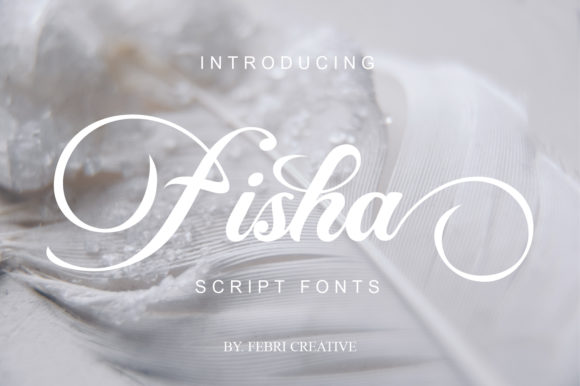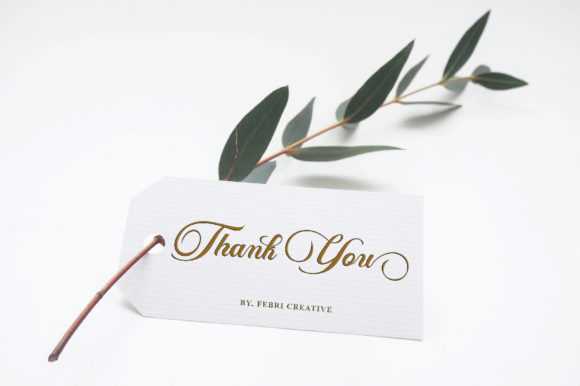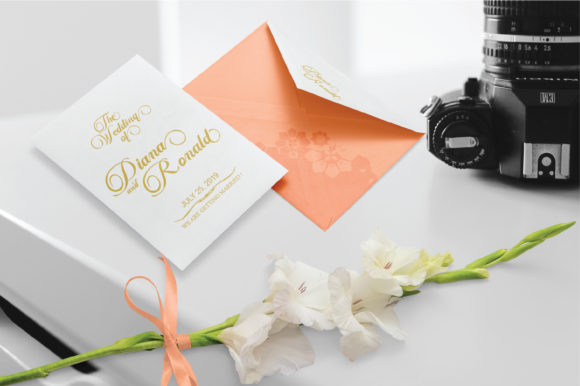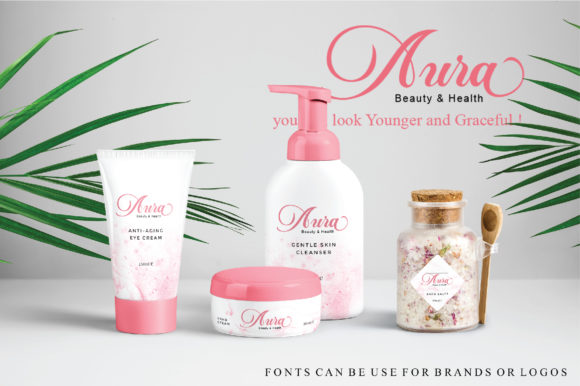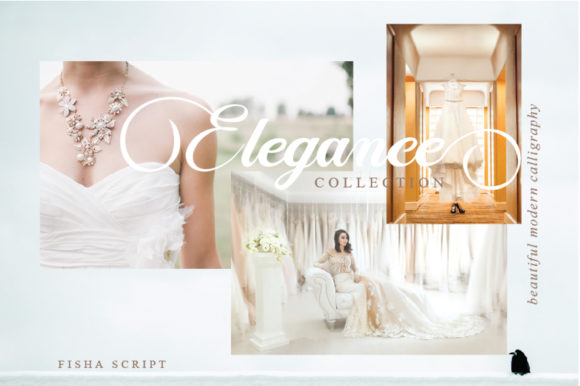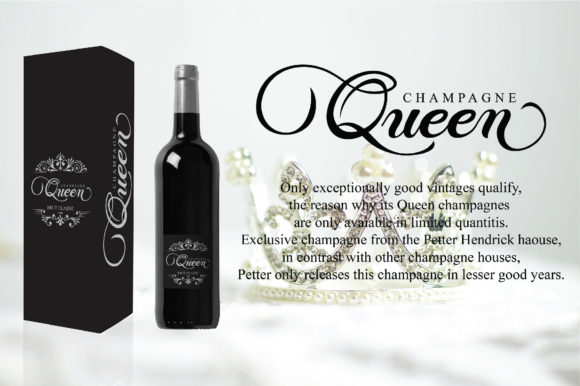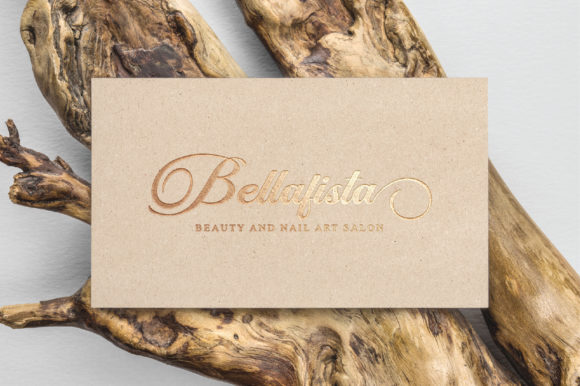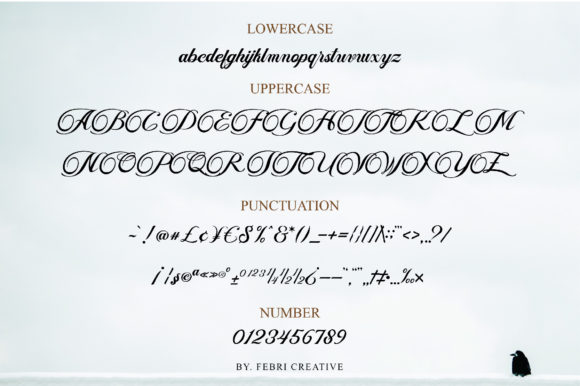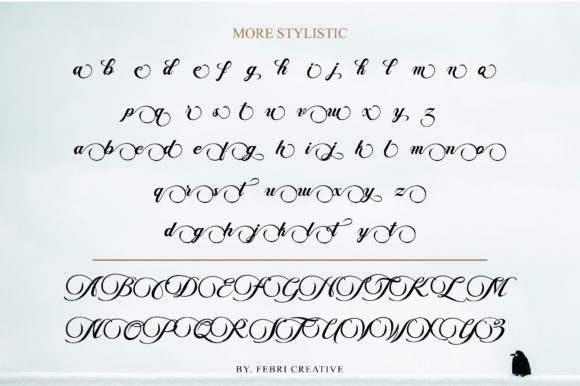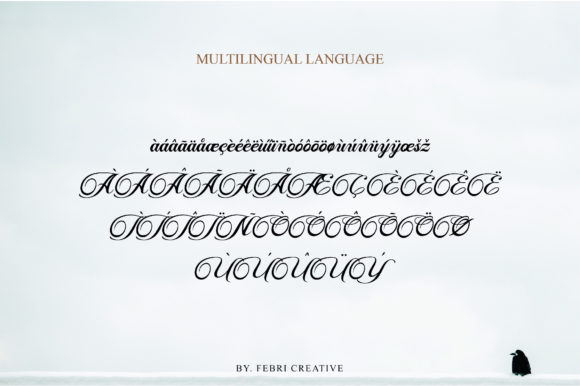
Fisha Script Font
About Fisha Script Font
Fisha is a luxurious and sophisticated handwritten font with a beautiful feel. It will add a bold twist to any design project!